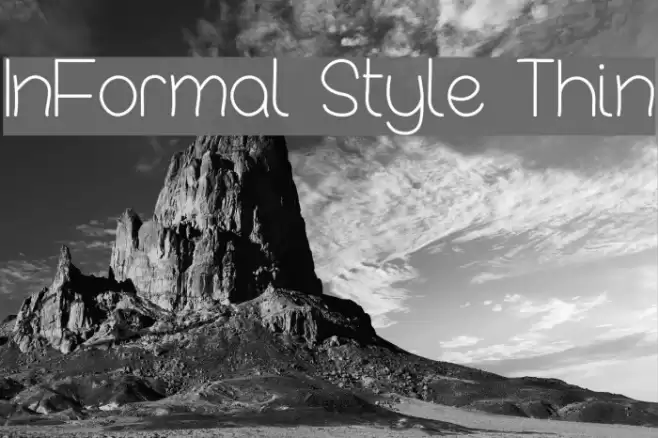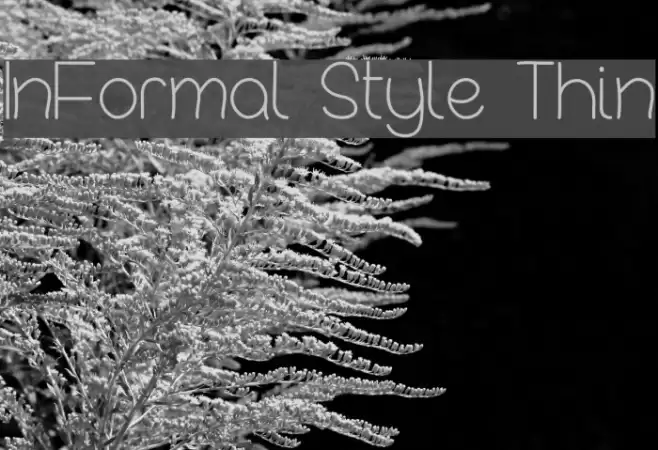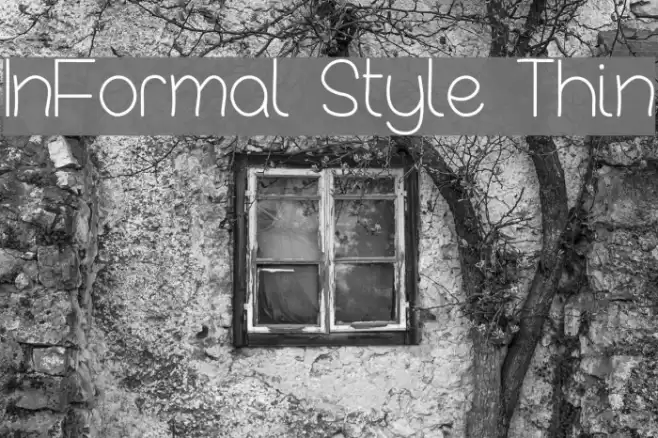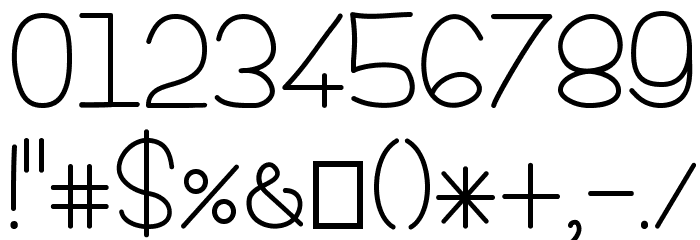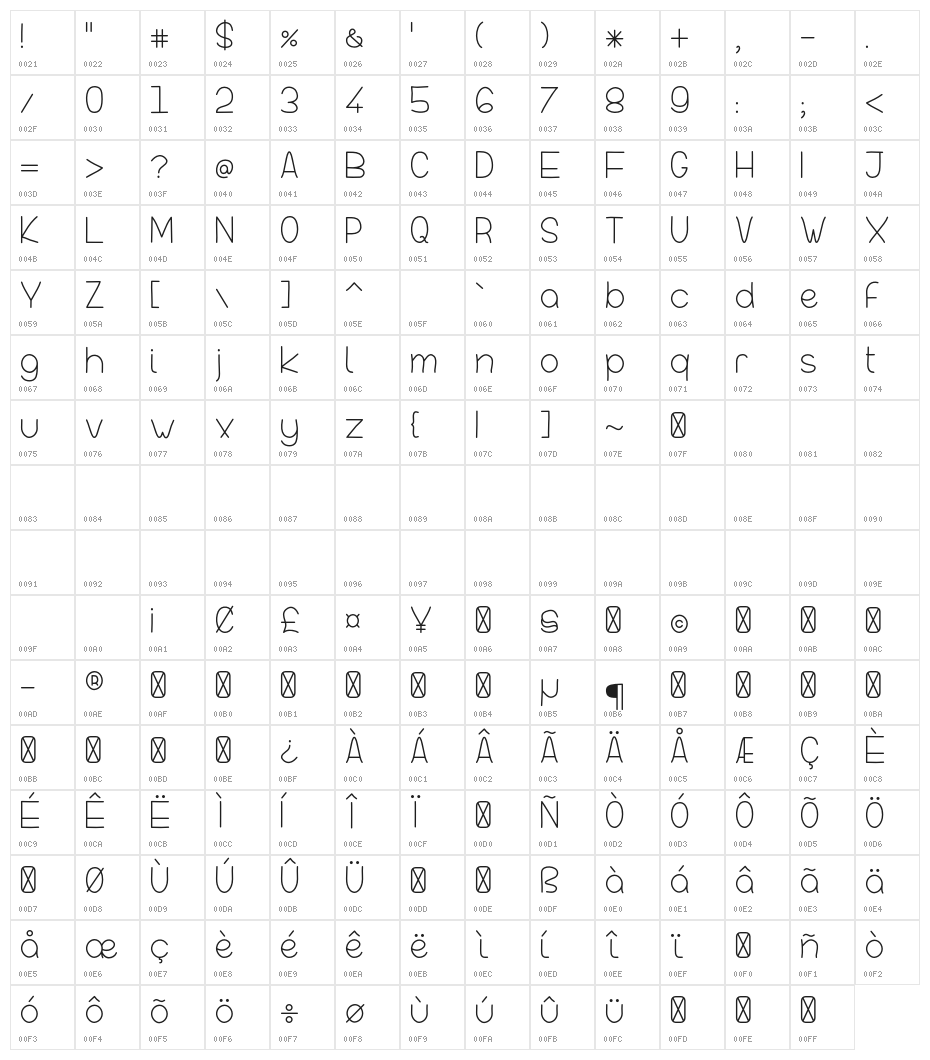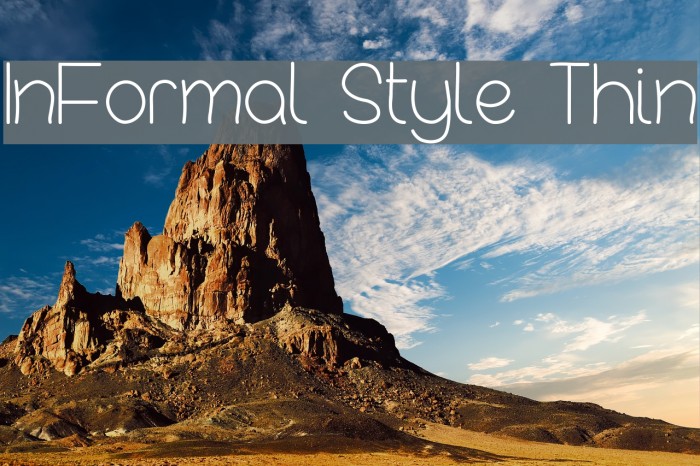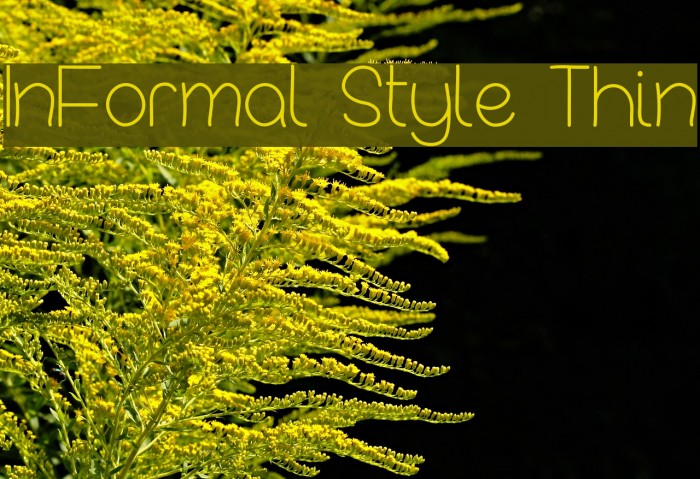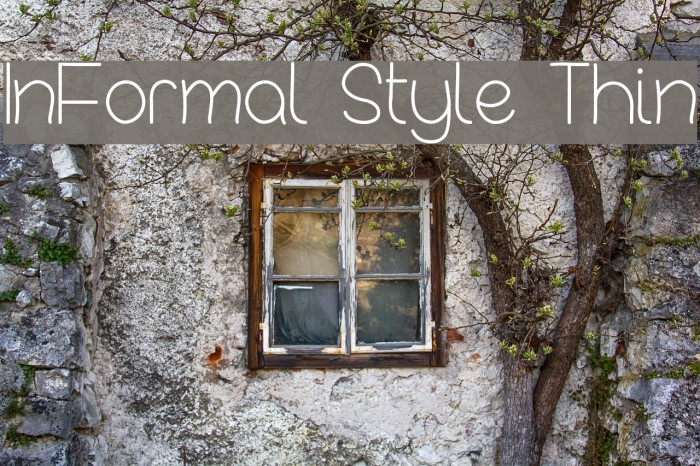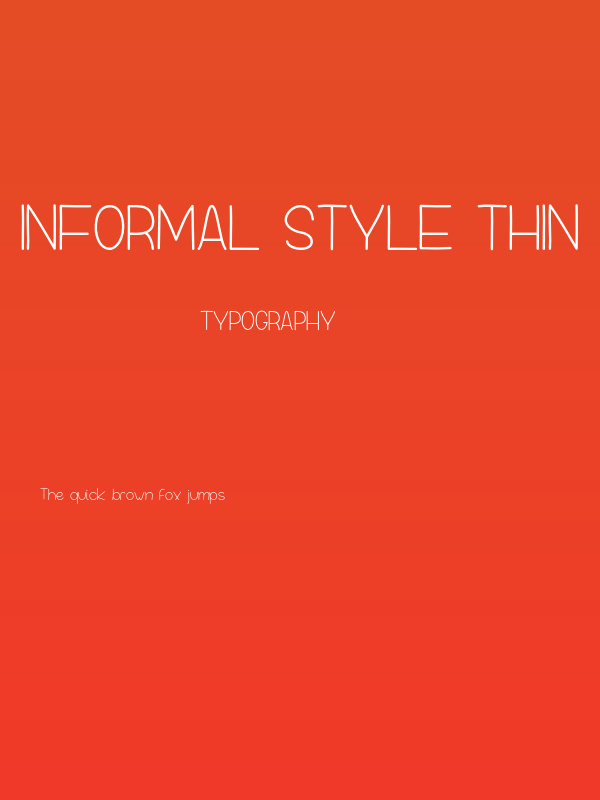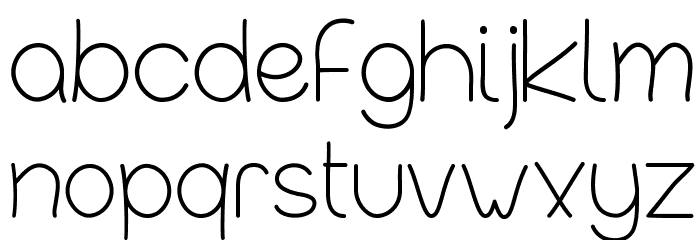
InFormal Style Thin Font
InFormal Style Thin Description
This font features a playful and informal style with thin, rounded strokes that give it a friendly and approachable appearance. The characters are evenly spaced, maintaining a consistent flow across both uppercase and lowercase letters. The numerals and special characters follow the same design principles, ensuring uniformity throughout. Its simplicity and clarity make it suitable for casual and creative projects, where a relaxed and inviting tone is desired. The font's thin lines and open forms contribute to its legibility, even at smaller sizes, making it versatile for various applications.
A playful, informal font with thin, rounded strokes and consistent spacing from Uncategorized fonts.
- Proposed Projects: Ideal for children's books, casual invitations, playful branding, and creative social media graphics.
- Overall Style: Casual
- Use Case: Headlines, Logos, Invitations